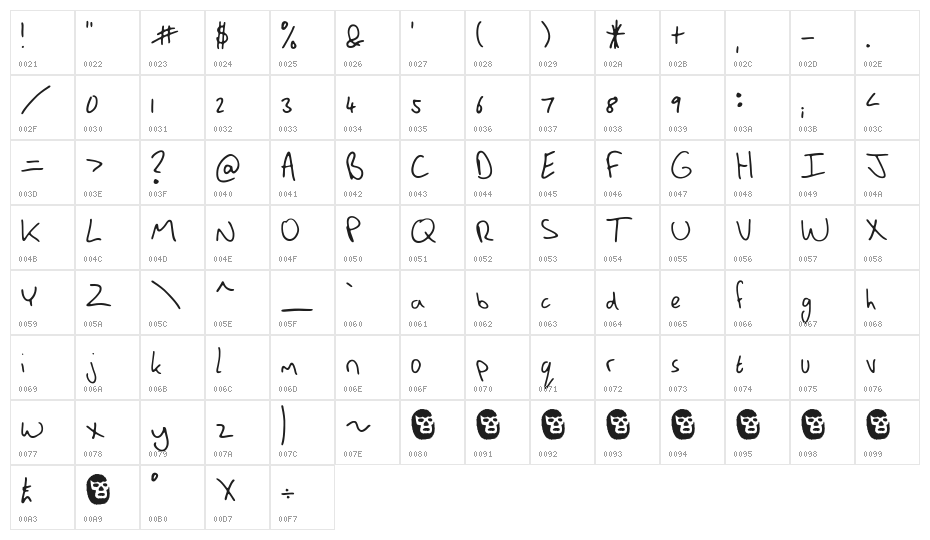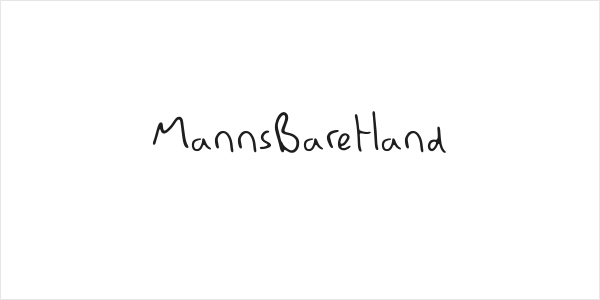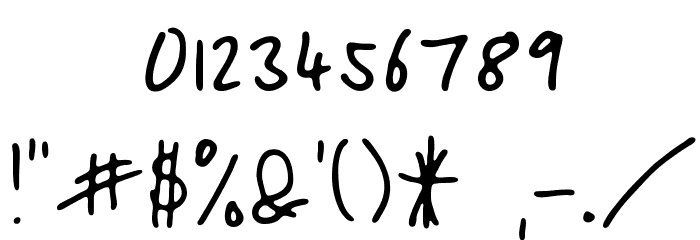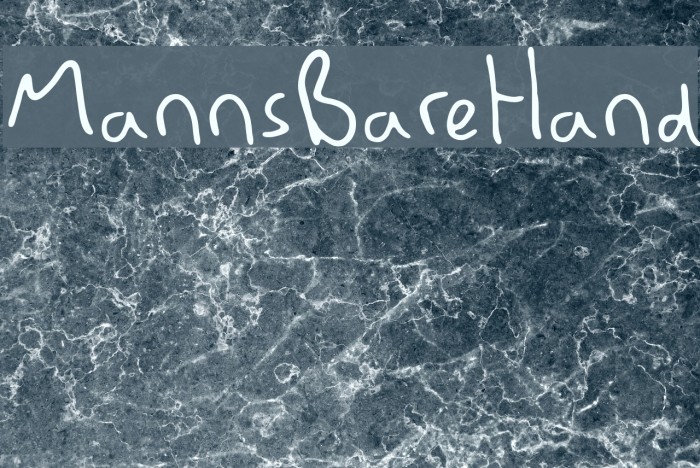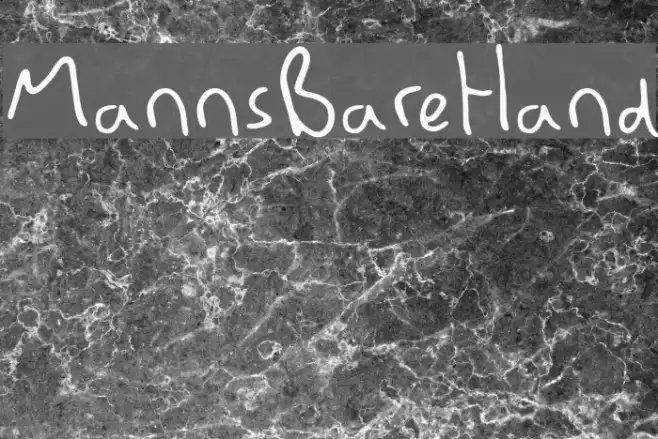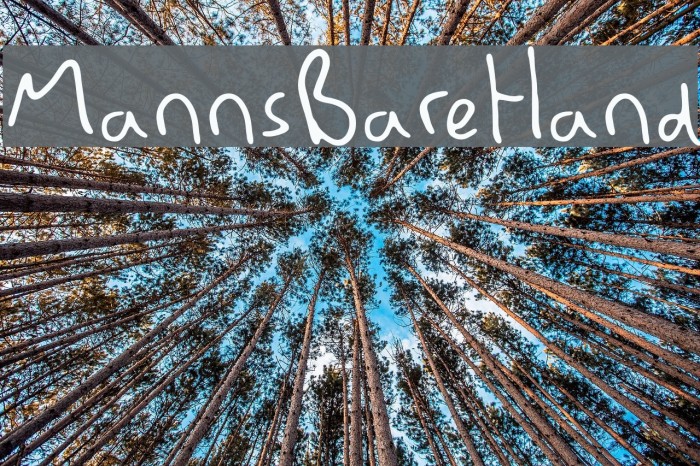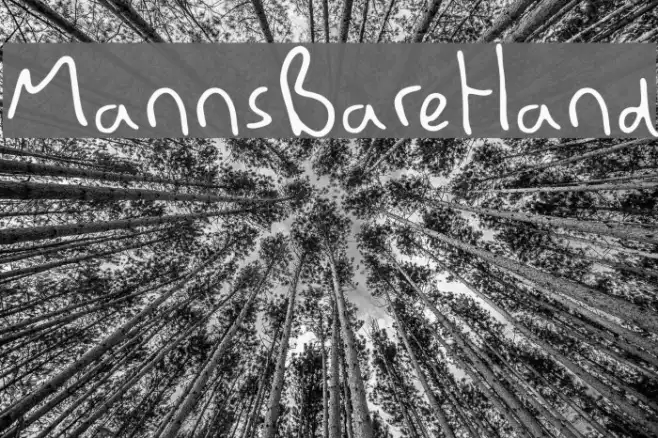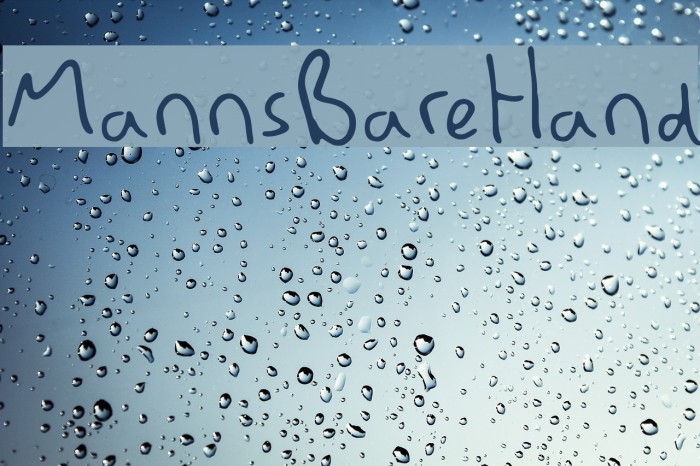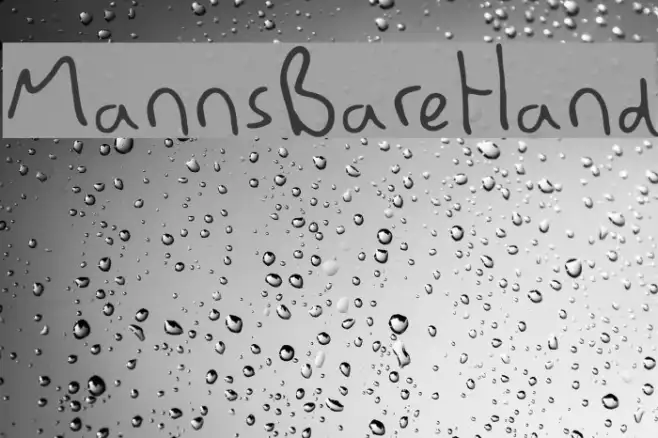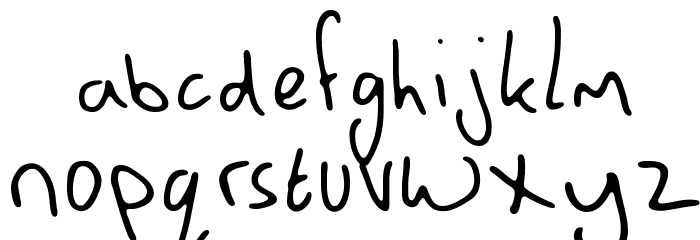
MannsBareHand Font
MannsBareHand Description
This font exudes a casual and approachable vibe, reminiscent of natural handwriting. Each character is crafted with a sense of spontaneity, featuring irregular strokes and varying thickness that add to its authenticity. The uppercase letters maintain a consistent height, while the lowercase letters exhibit a playful, slightly slanted style. Numbers and special characters follow the same informal aesthetic, making them blend seamlessly with the alphabet. The overall appearance is friendly and personal, ideal for projects that require a human touch.
| Proposed Projects | Ideal for personal notes, invitations, greeting cards, and informal branding projects. |